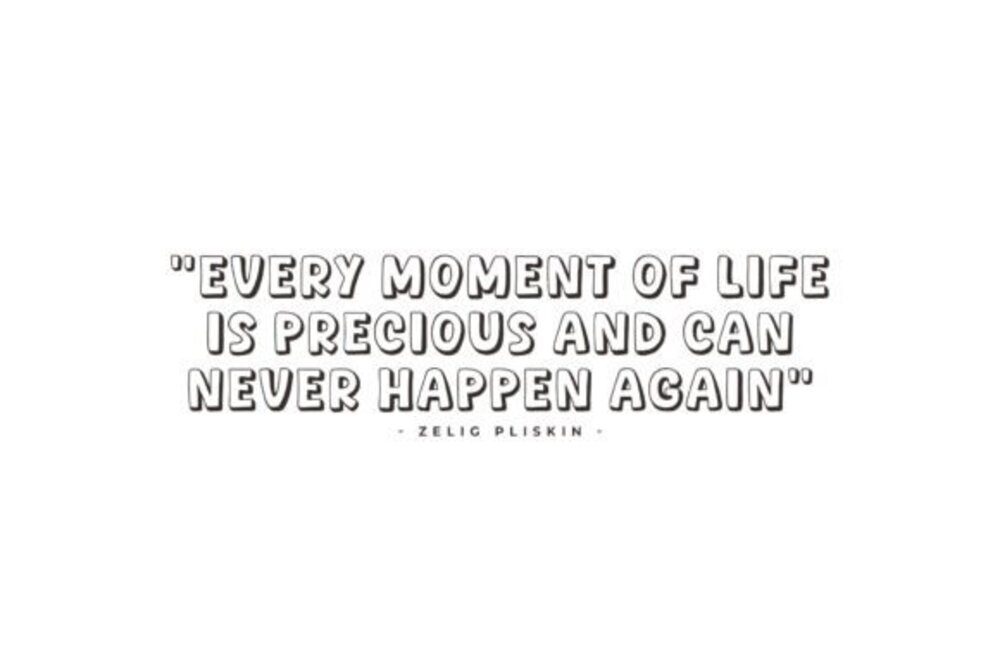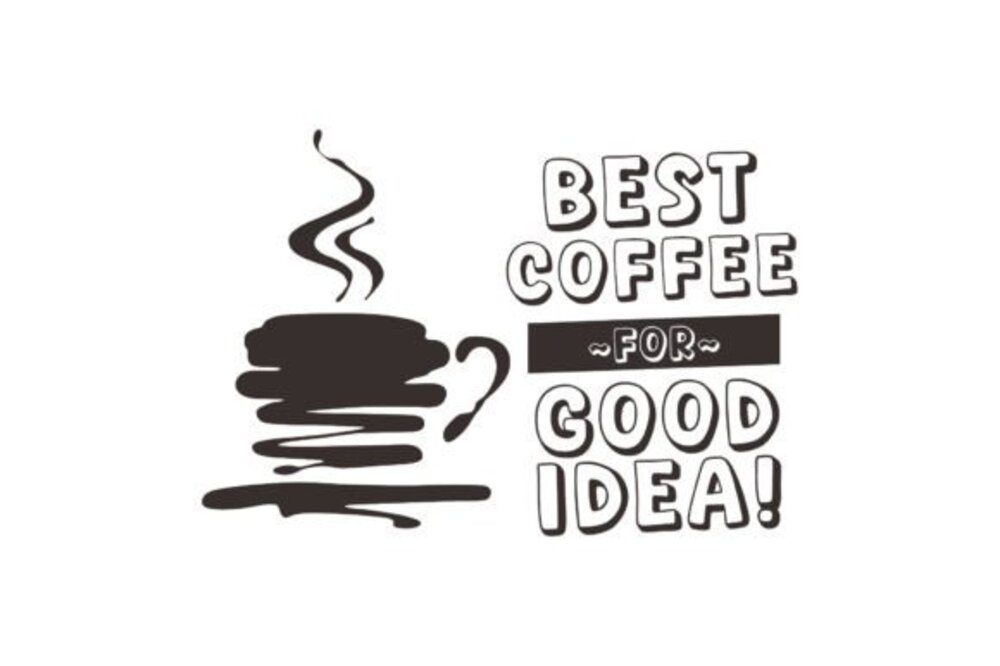
Soda Shake Font
Soda Shake is a playful and bubbly font that brings energy and fun to any design. With its rounded, hand-drawn letters and dynamic curves, it’s perfect for vibrant branding, party invitations, children’s projects, or any creative venture. This versatile typeface exudes a cheerful personality, making your text pop with a refreshing and lively vibe that grabs attention instantly.